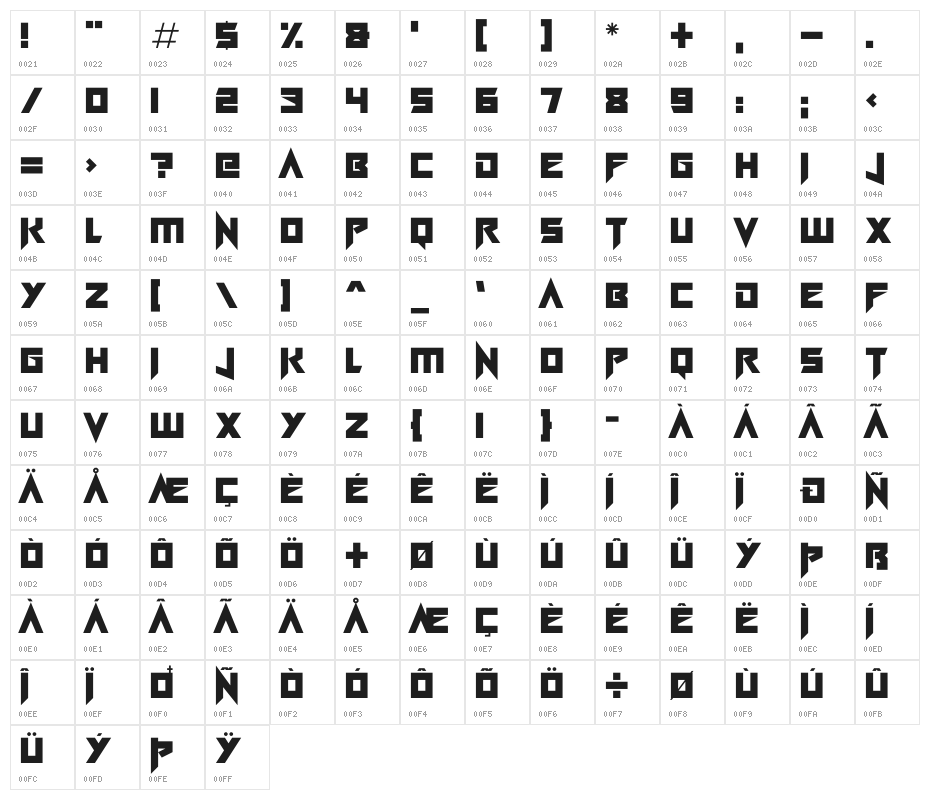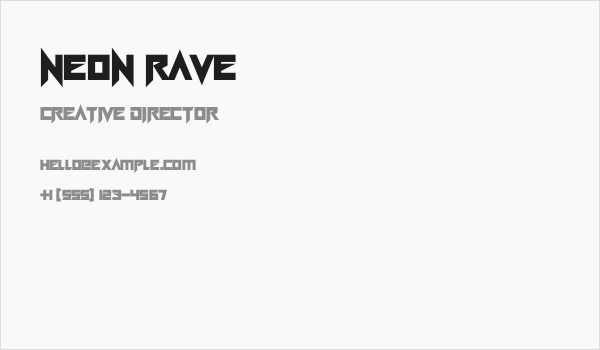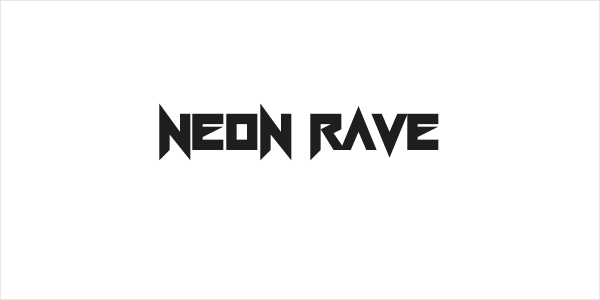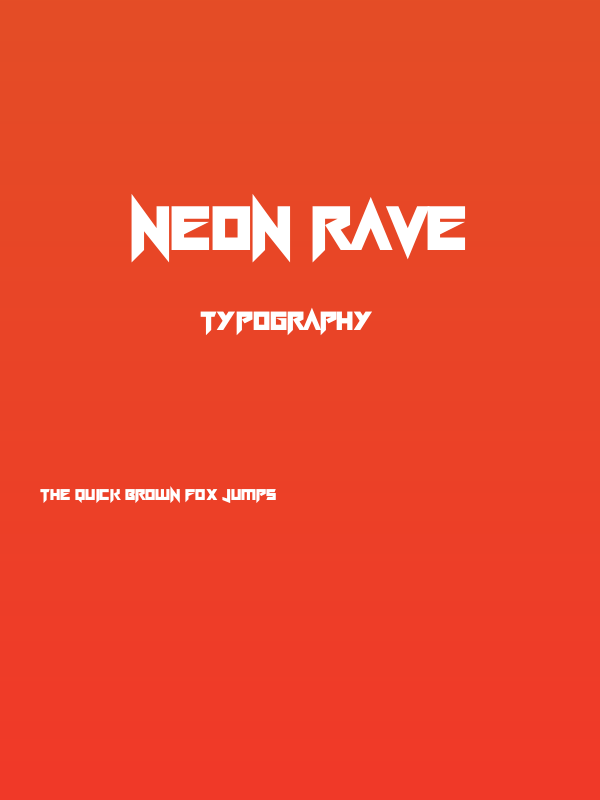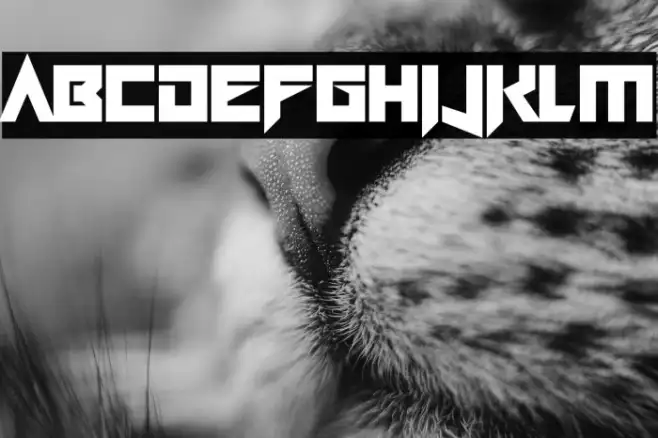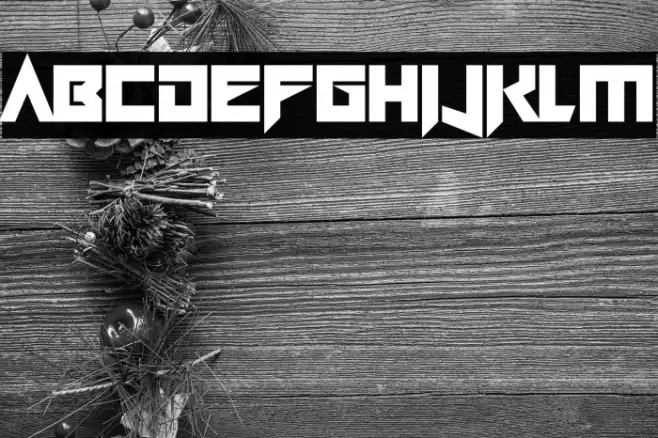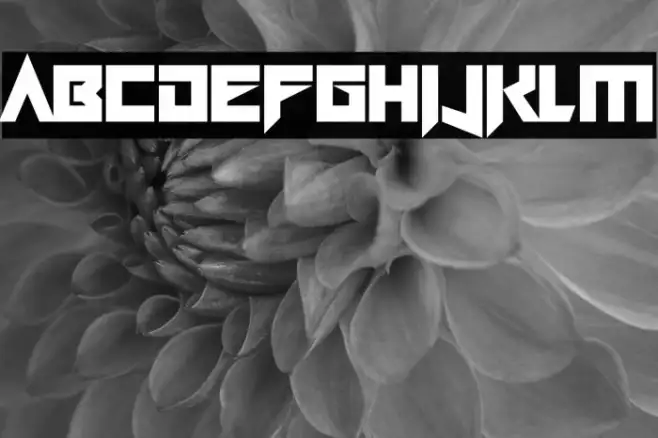
Neon Rave Font
Neon Rave Description
This font features a bold, geometric design with sharp angles and a futuristic aesthetic. The characters are constructed with a mix of straight lines and angular cuts, giving them a dynamic and edgy appearance. The uppercase and lowercase letters maintain a consistent style, with a strong emphasis on symmetry and balance. The numerals and special characters follow the same design principles, ensuring uniformity across all glyphs. This font is ideal for projects that require a modern and striking visual impact.
| Proposed Projects | Ideal for music festival posters, video game titles, sci-fi book covers, and branding for tech companies. |